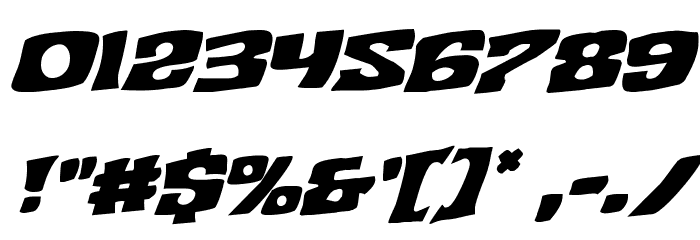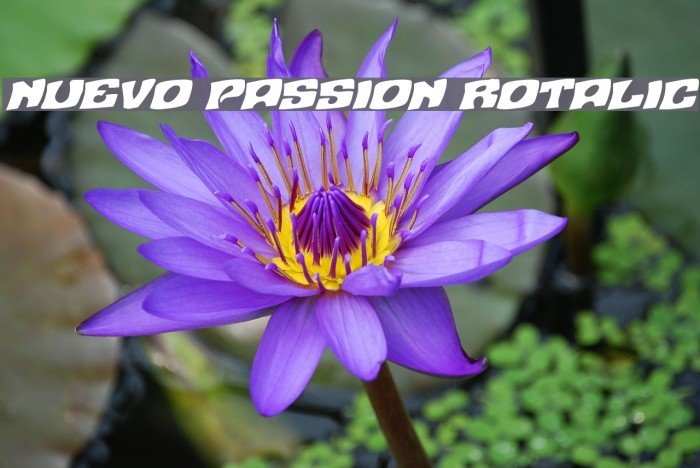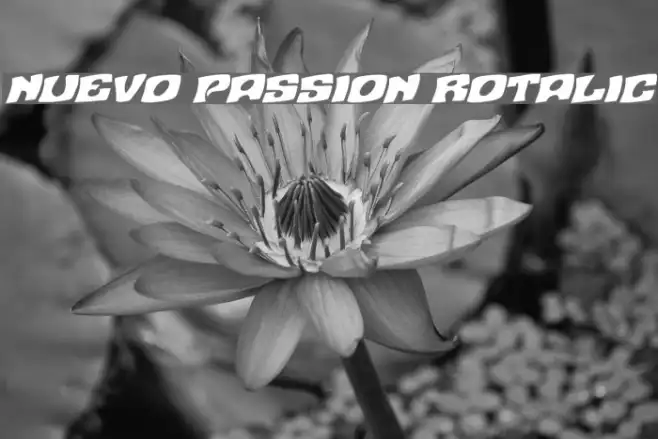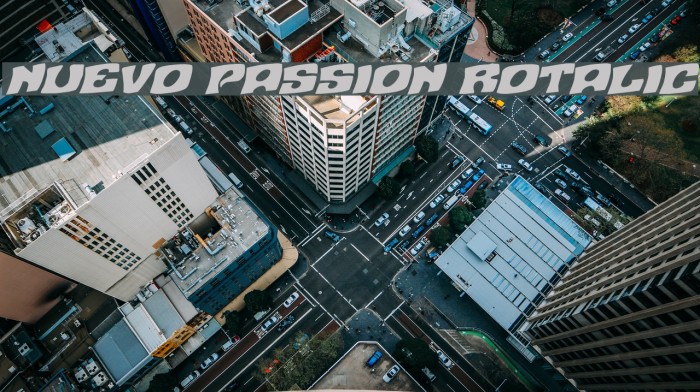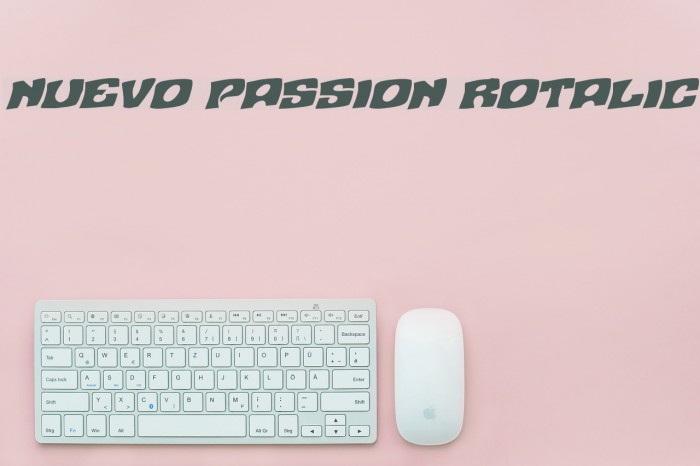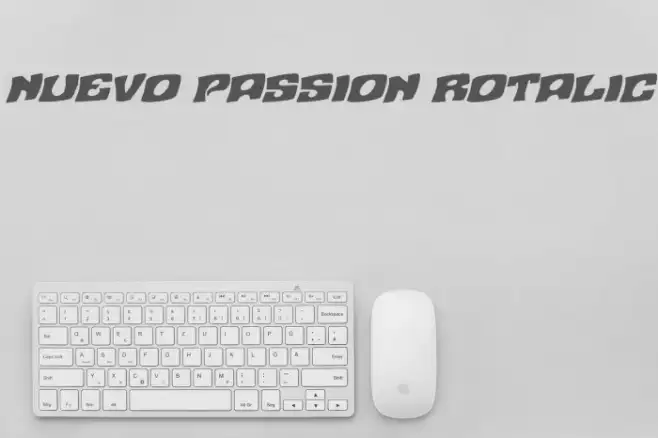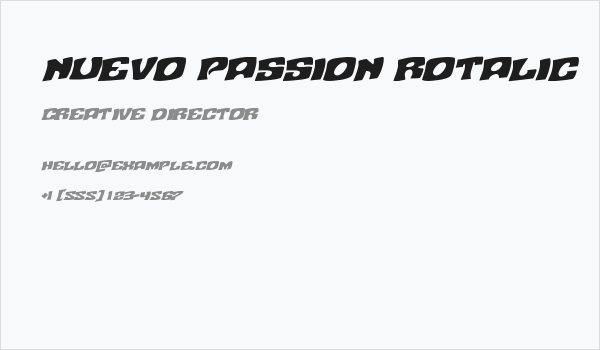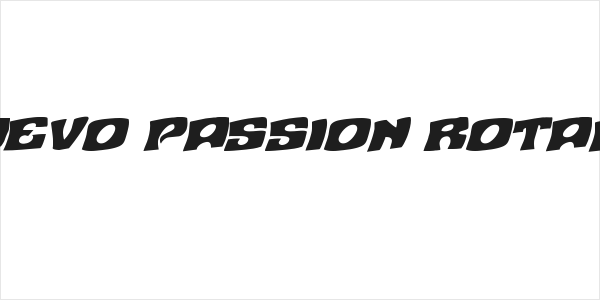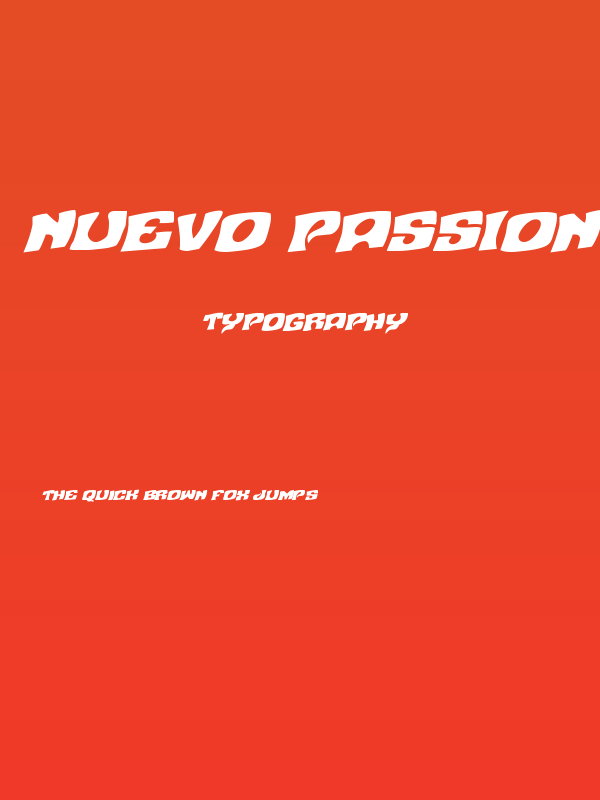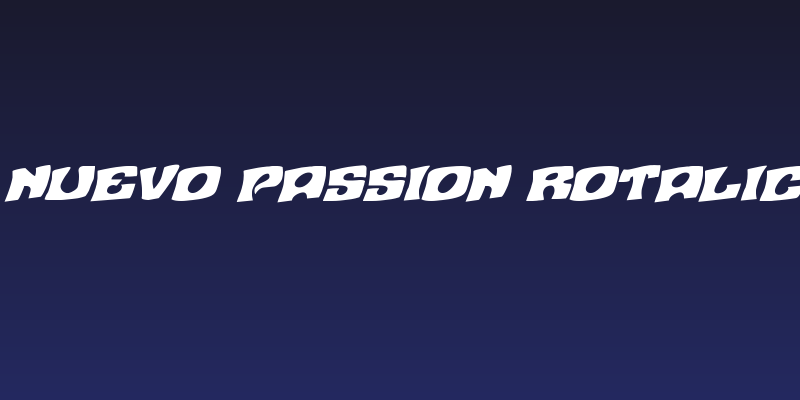
Nuevo Passion Rotalic Font
Nuevo Passion Rotalic Description
This font features a bold and dynamic style with a strong slant, giving it a sense of motion and energy. The characters are thick and robust, with a slightly condensed appearance that enhances their impact. The strokes are consistent in weight, providing a uniform look across all characters. The design incorporates sharp angles and smooth curves, creating a modern and edgy aesthetic. The uppercase and lowercase letters maintain a cohesive style, while the numerals and special characters blend seamlessly with the overall design. This font is ideal for projects that require a bold statement and a contemporary feel.